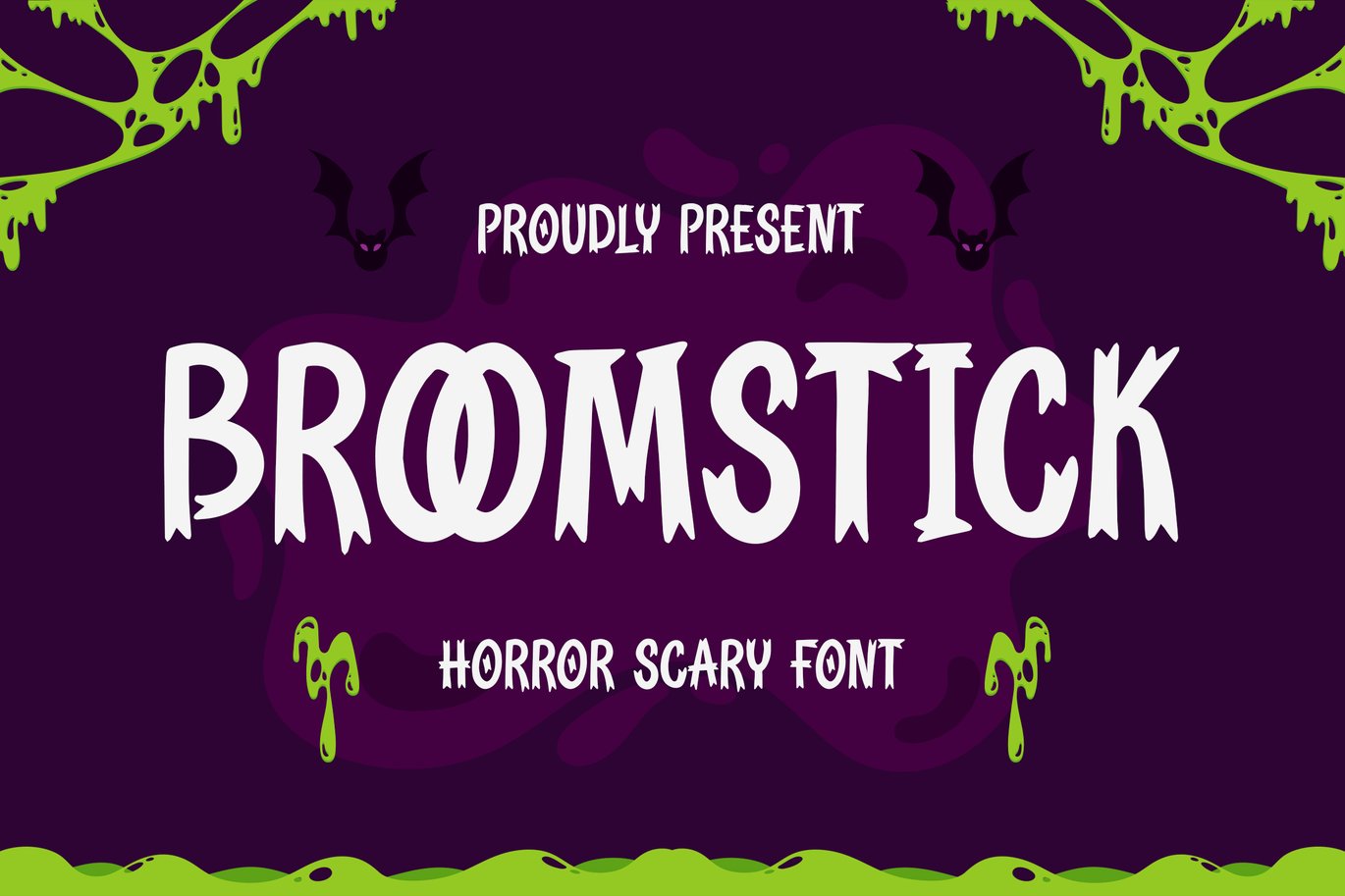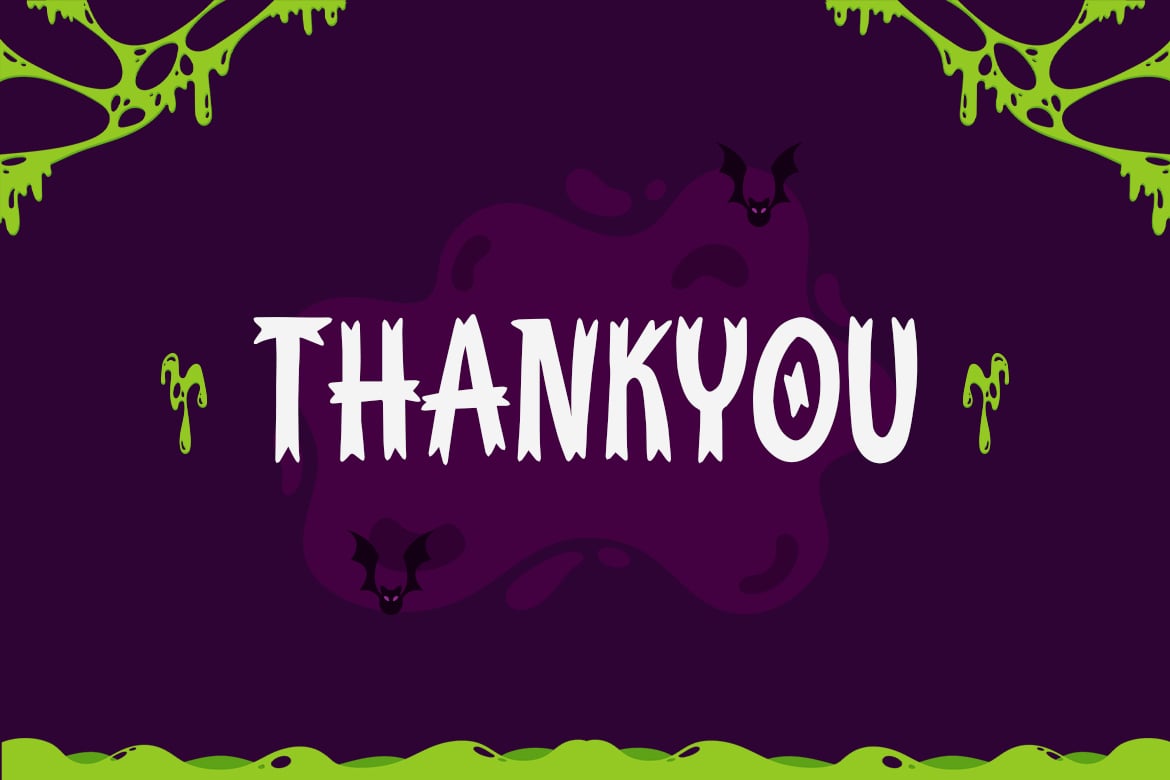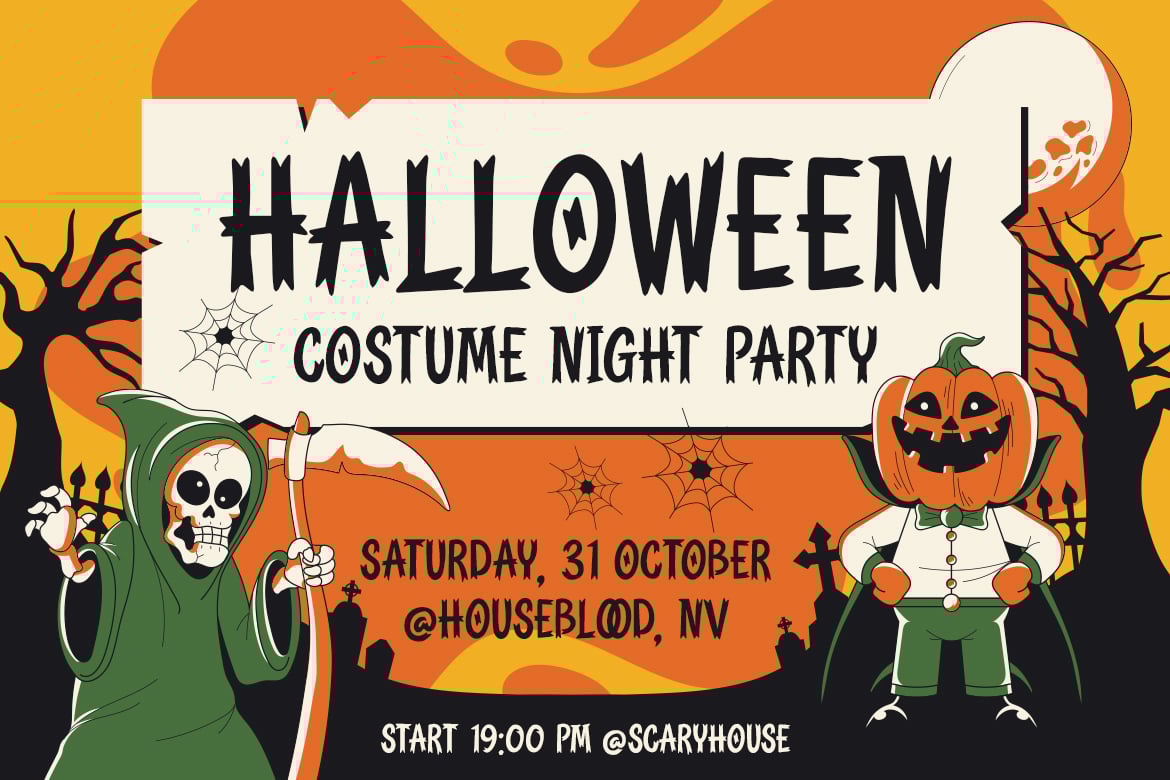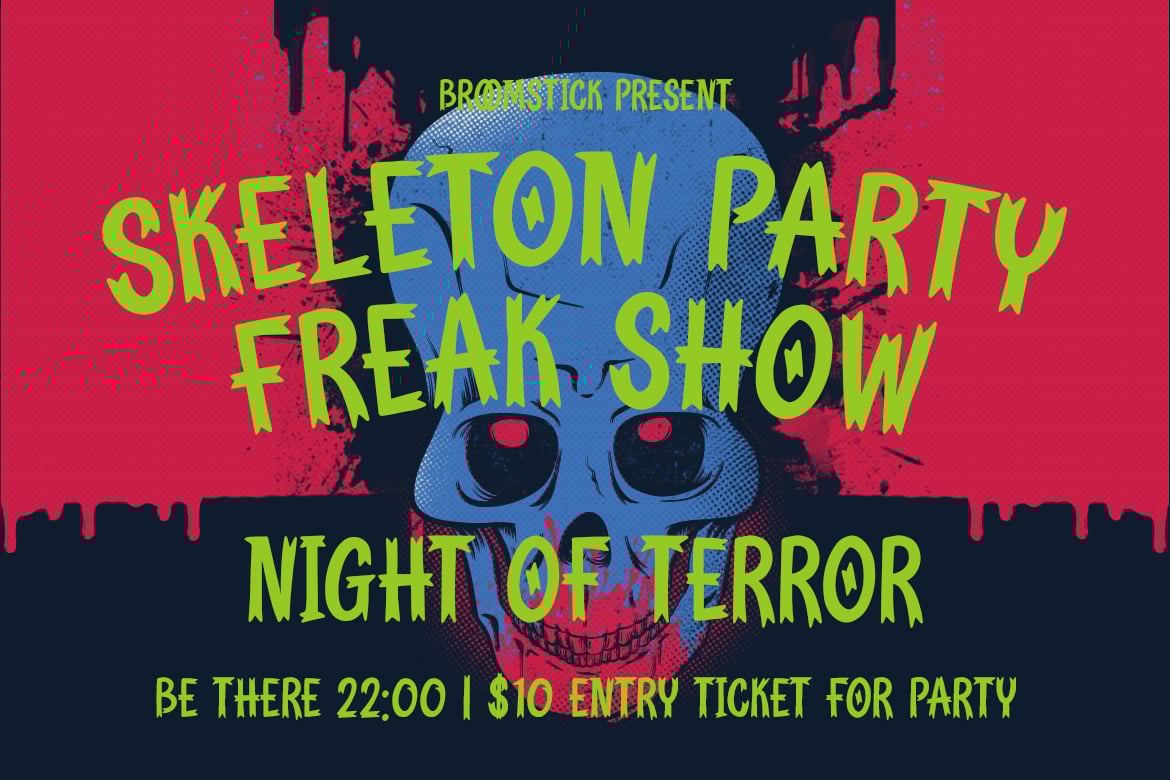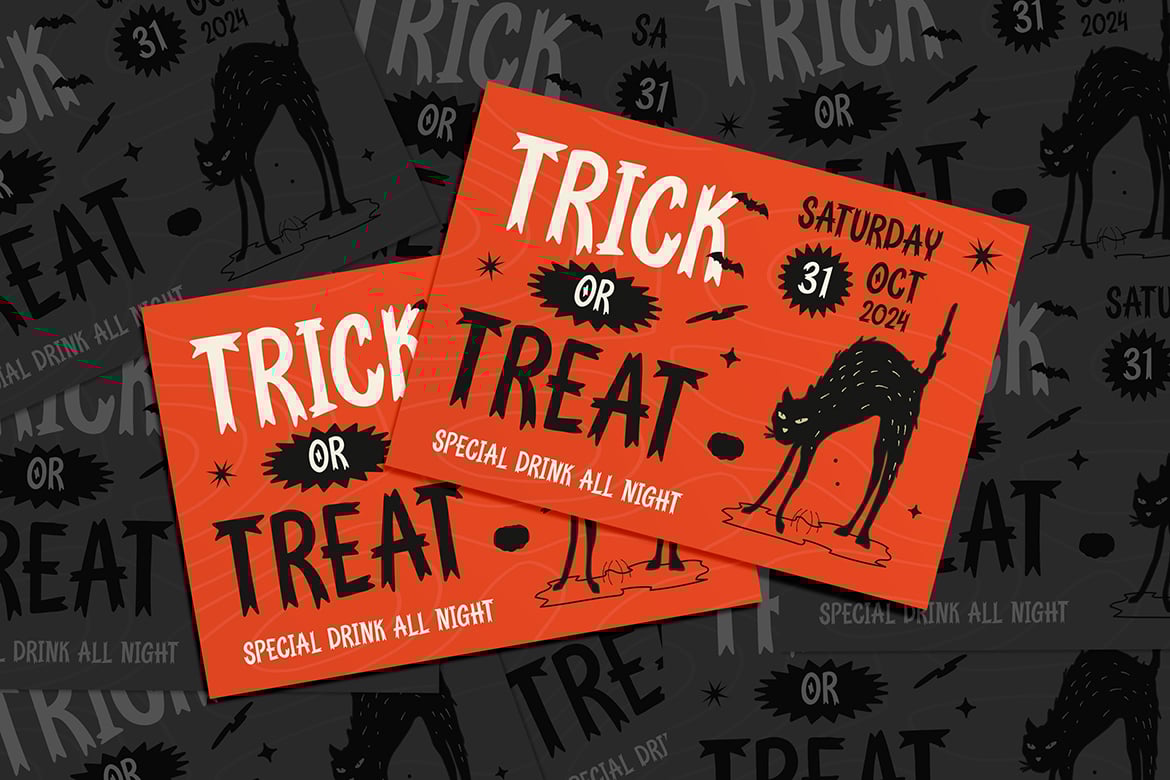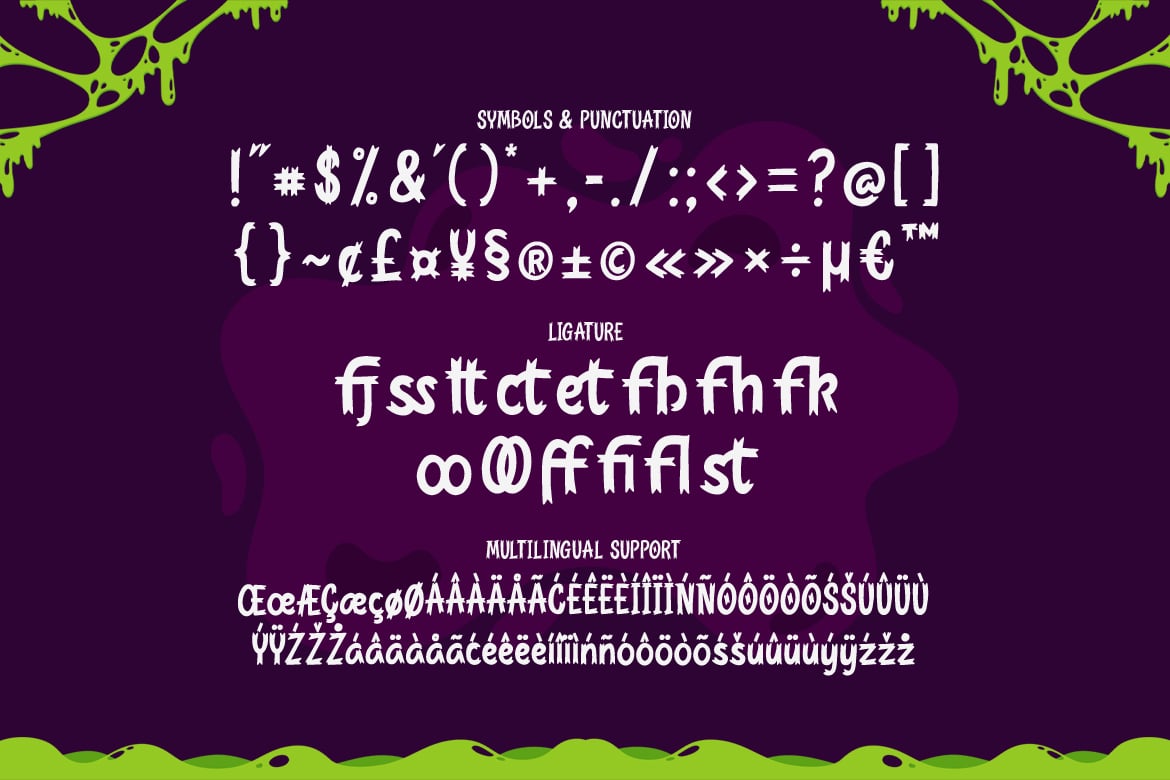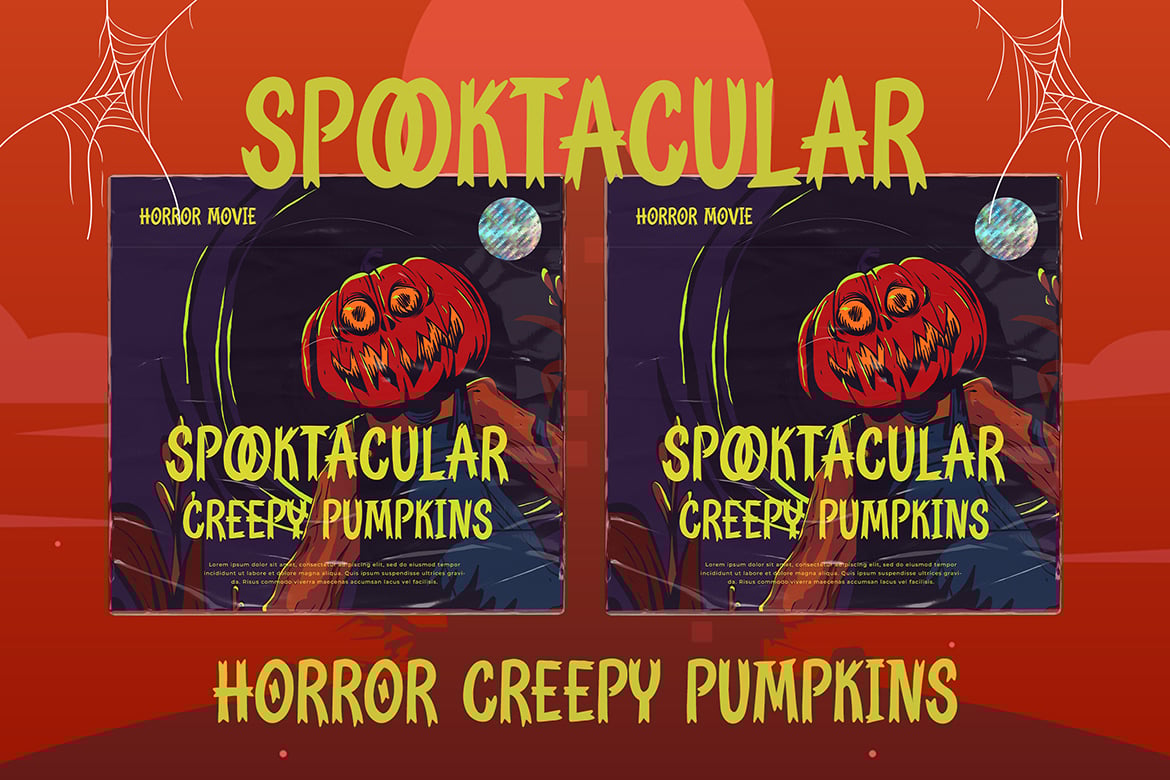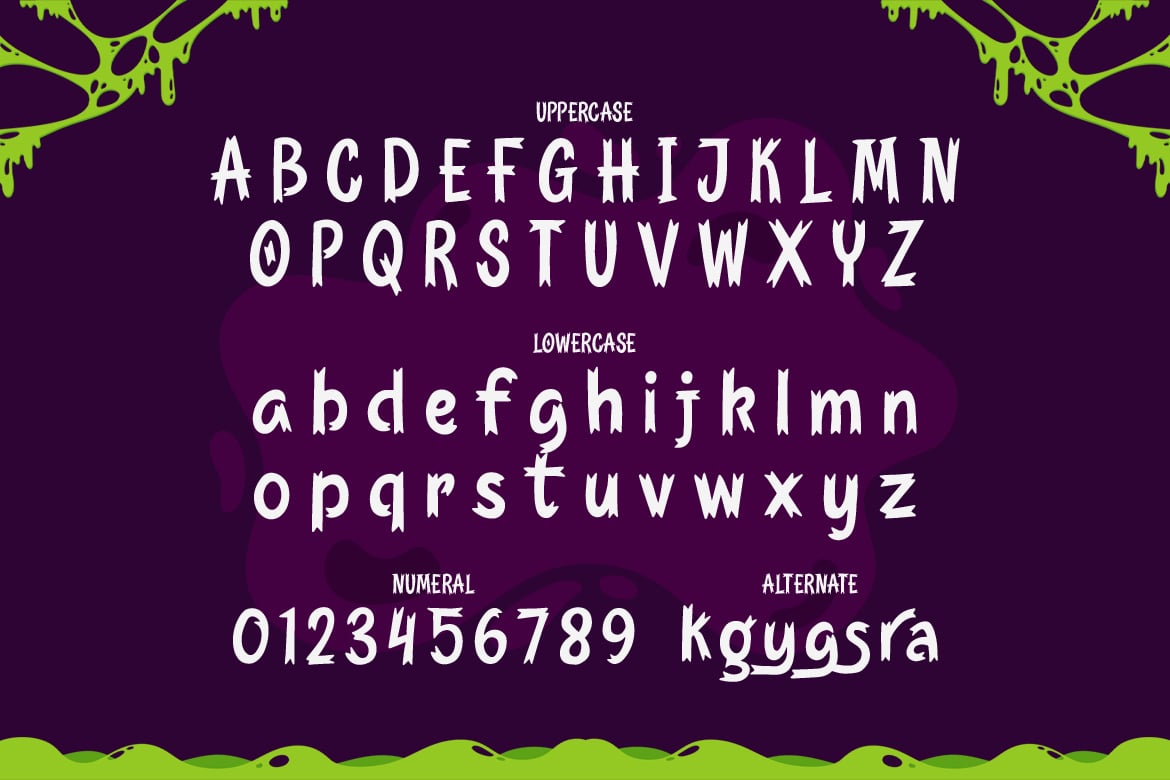
Broomstick – Scary Horror Font
Broomstick is a dark, horror looking display font. Add it to your scary crafts, horror movie posters, t-shirts and anything else that requires a spectacular look.